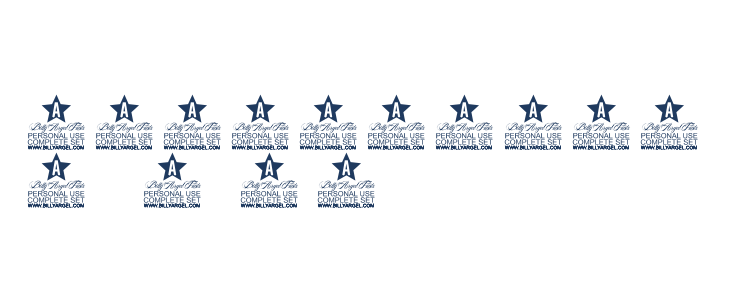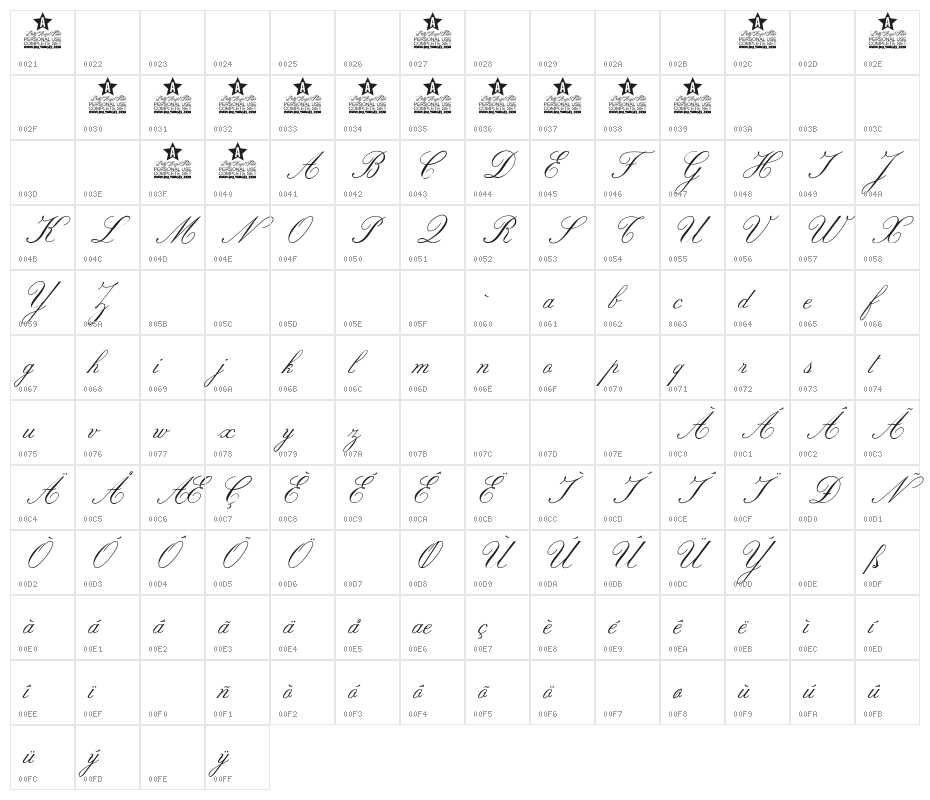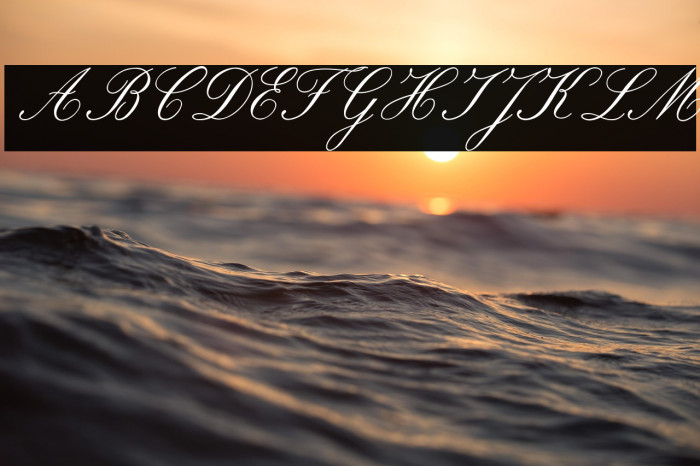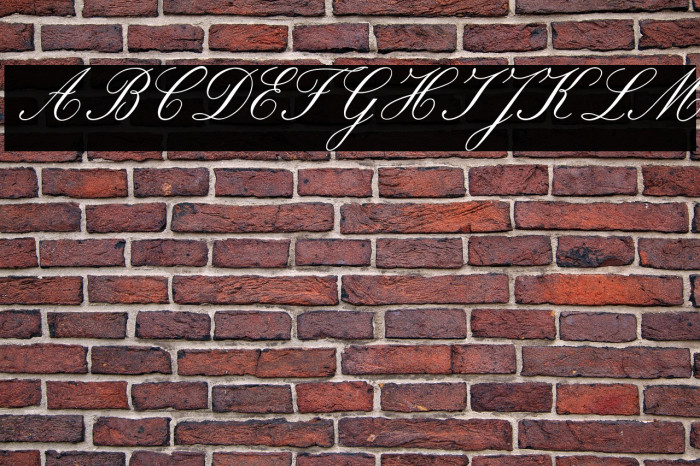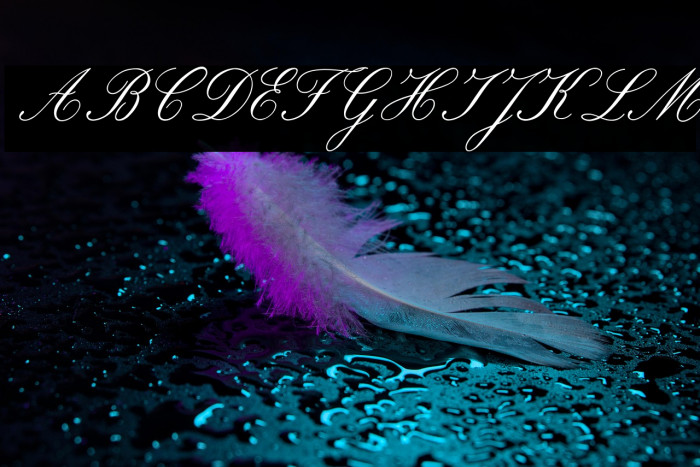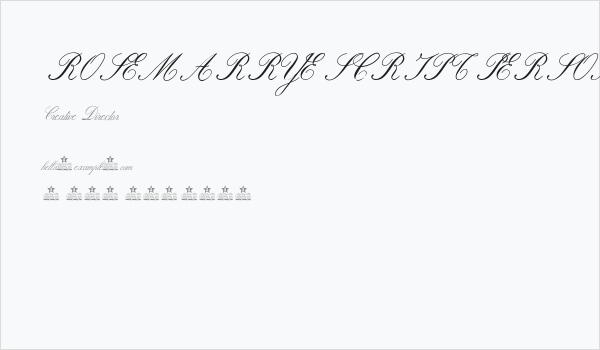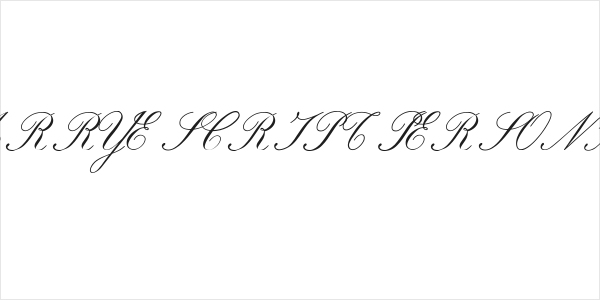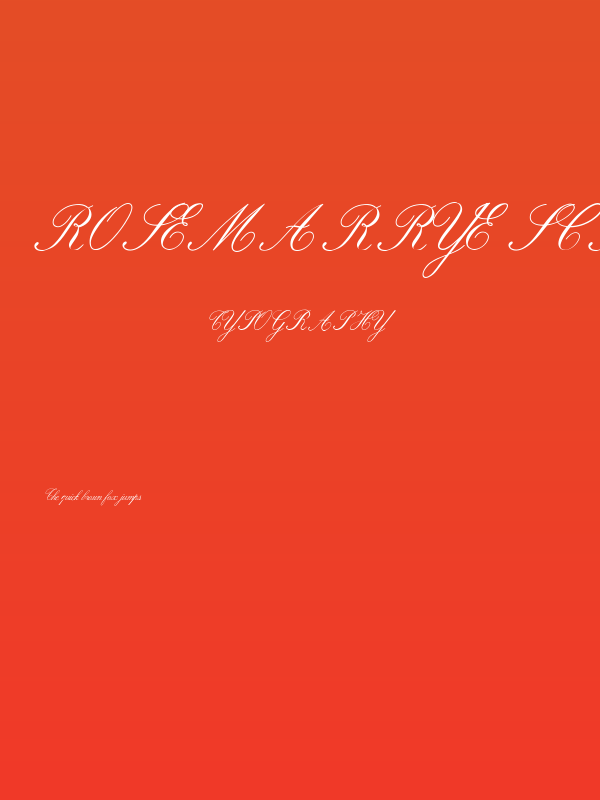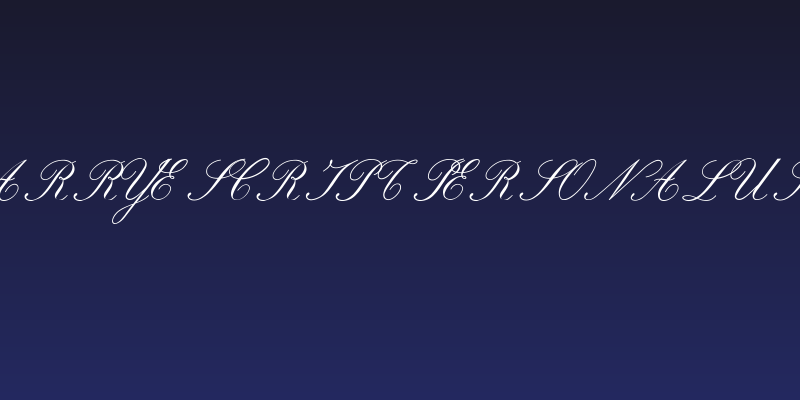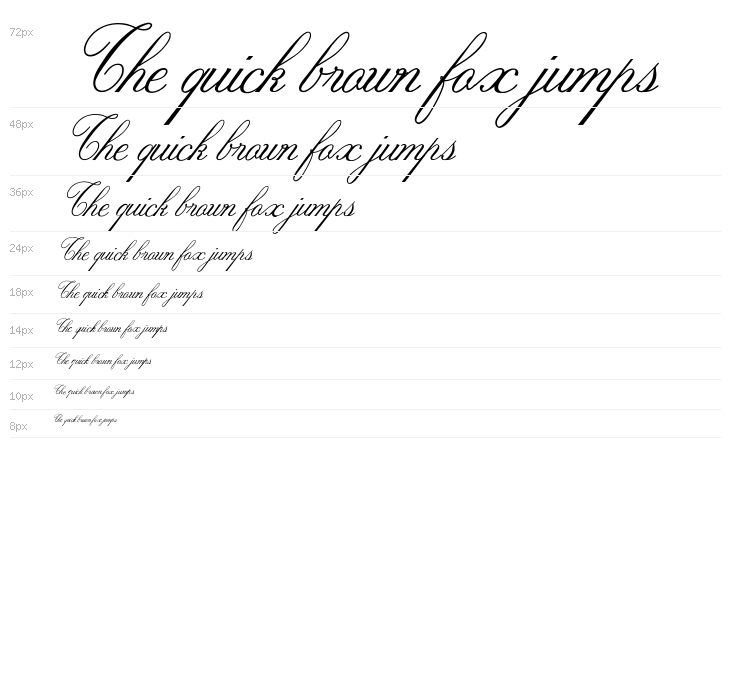
ROSEMARRYE SCRIPT PERSONAL USE Italic Font
ROSEMARRYE SCRIPT PERSONAL USE Italic Description
This elegant script font features flowing, cursive letters with a classic and sophisticated appearance. The uppercase letters are gracefully elongated, while the lowercase letters maintain a smooth and connected style, enhancing readability. The font's italic nature adds a sense of motion and fluidity, making it ideal for formal invitations, elegant branding, and decorative purposes. The characters are well-spaced, ensuring clarity and legibility even in smaller sizes. The font's overall design exudes a timeless charm, suitable for projects requiring a touch of elegance and refinement.